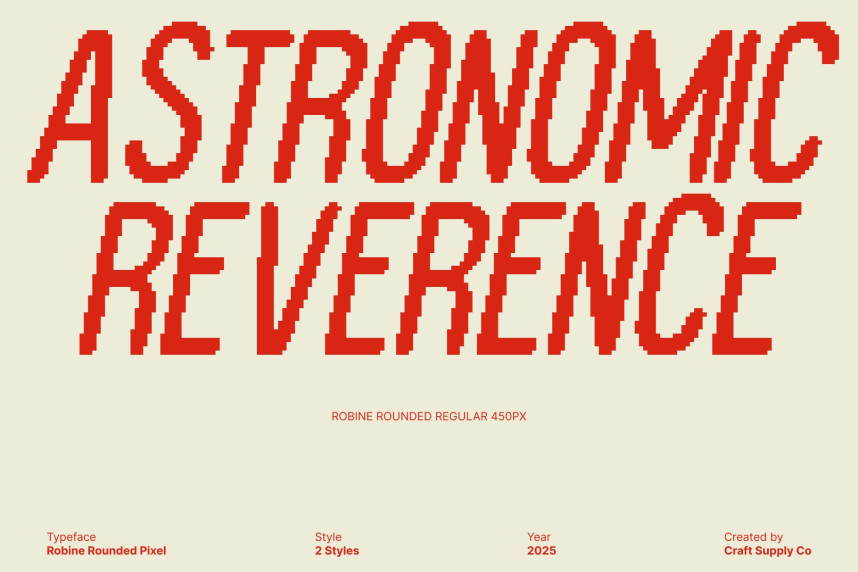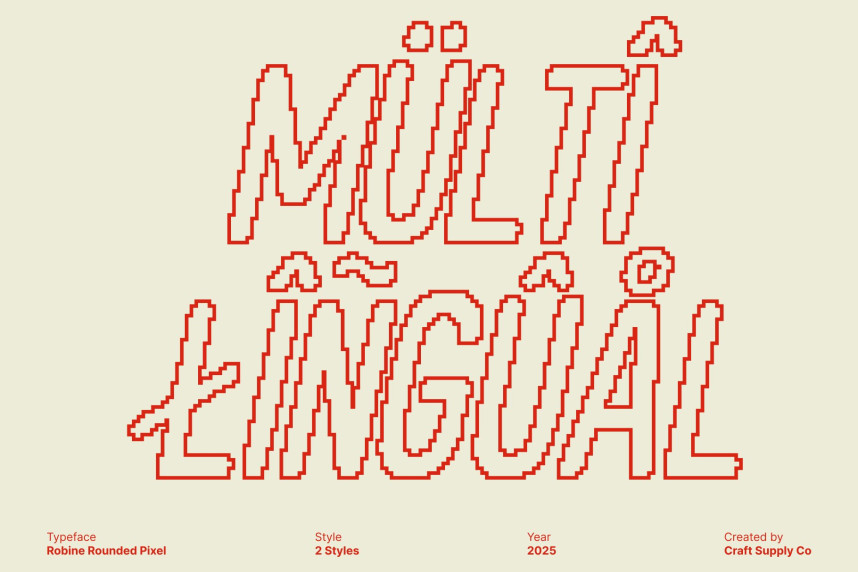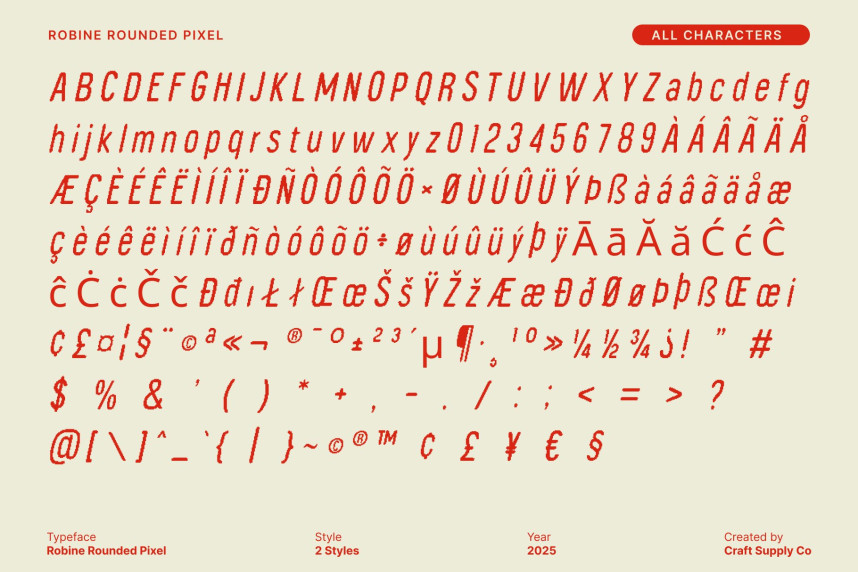
Robine Rounded Pixel Font
Robine Rounded Pixel Font – Retro Pixel Sans Serif with Modern Appeal Pixelated Style with 90s Nostalgia. The brings a unmistakable charm of the 90s digital era into a fresh, modern sans serif form. This font blends pixelated detailing with smooth rounded shapes, creating a distinctive look that evokes classic video games while still feeling clean and contemporary. Its nostalgic aesthetic makes it instantly eye-catching, while the rounded design softens the pixel structure for a more accessible, versatile appearance.